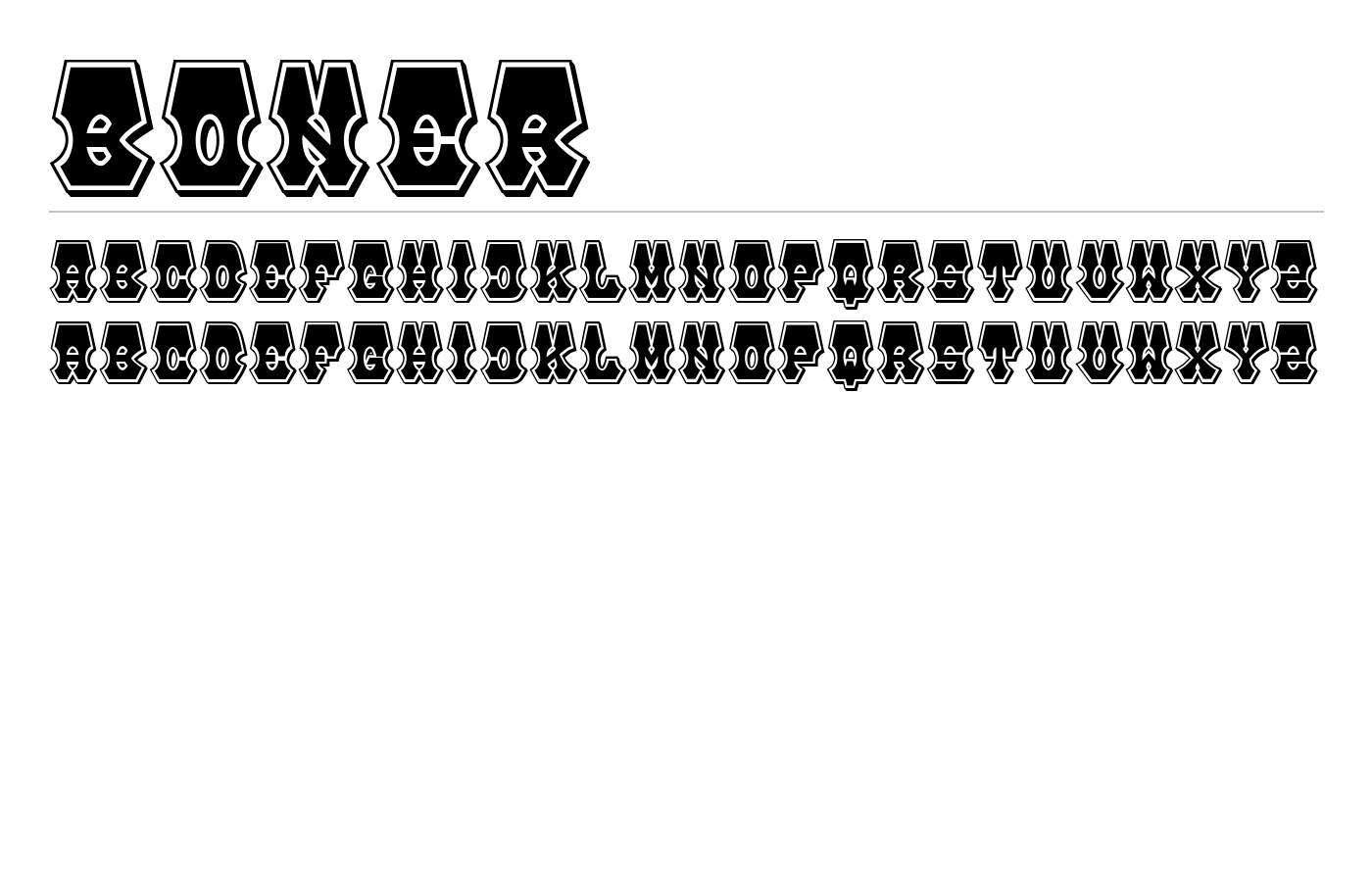
Boner Font is a bold, decorative slab serif typeface with a playful, vintage western vibe. Its heavy weight and unique cut-out details in each letter create a strong, eye-catching presence, making it perfect for headlines, logos, and posters that want to convey a fun yet sturdy character. This font works well in branding or designs that seek a retro, spirited feel with a distinctive edge.
Boner Font